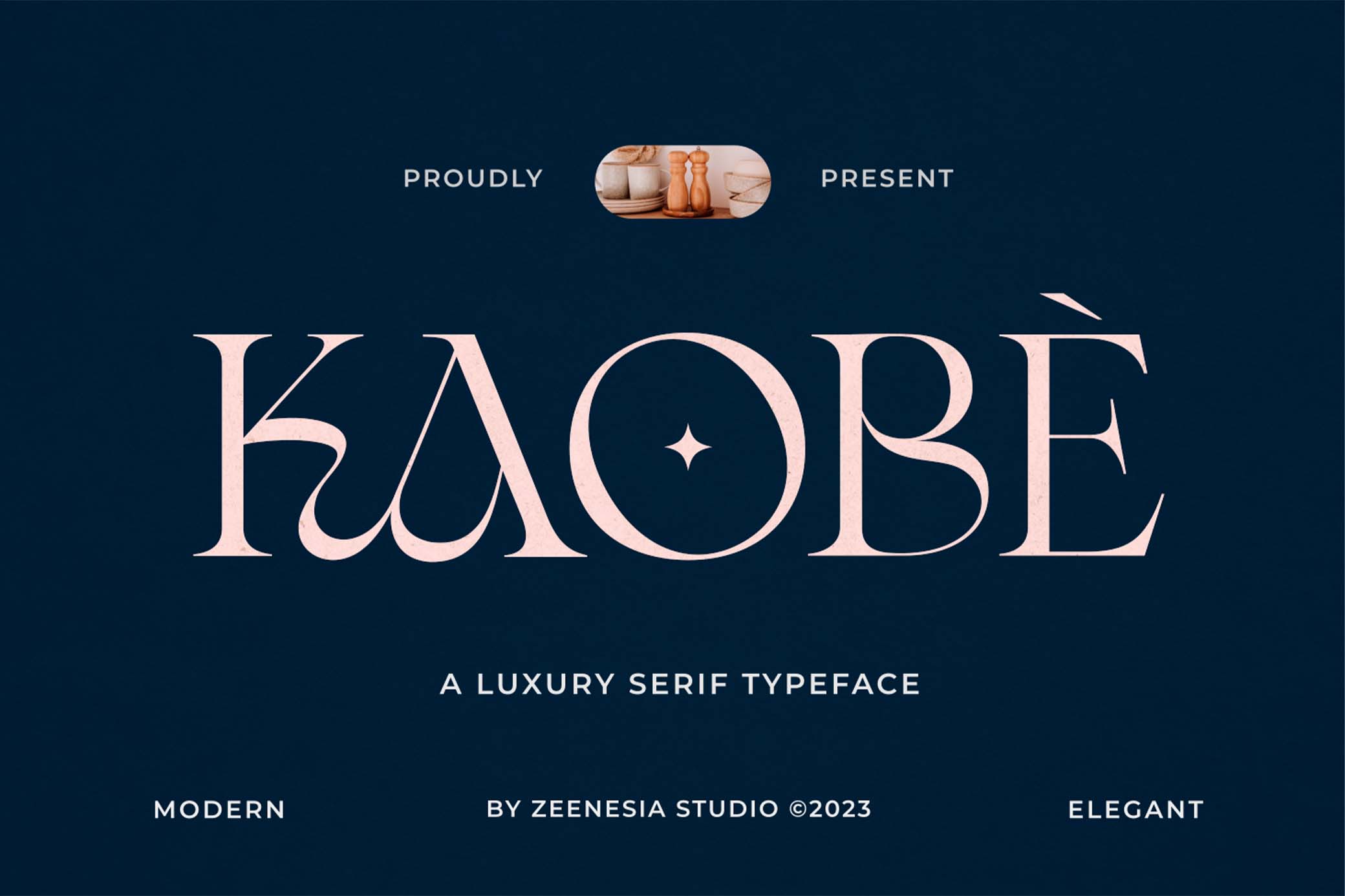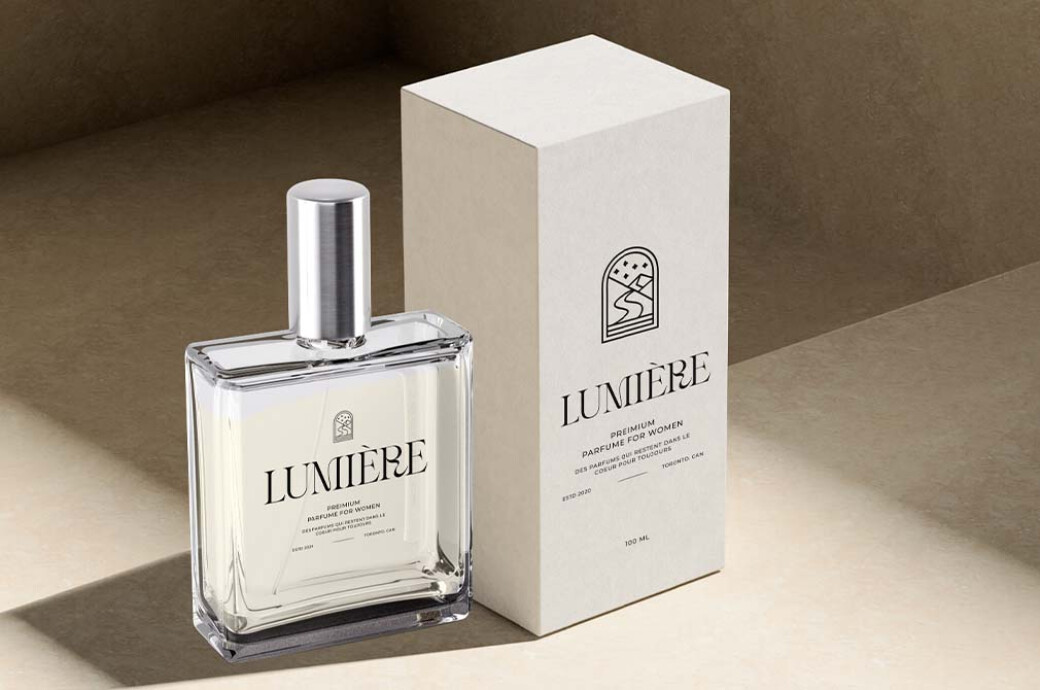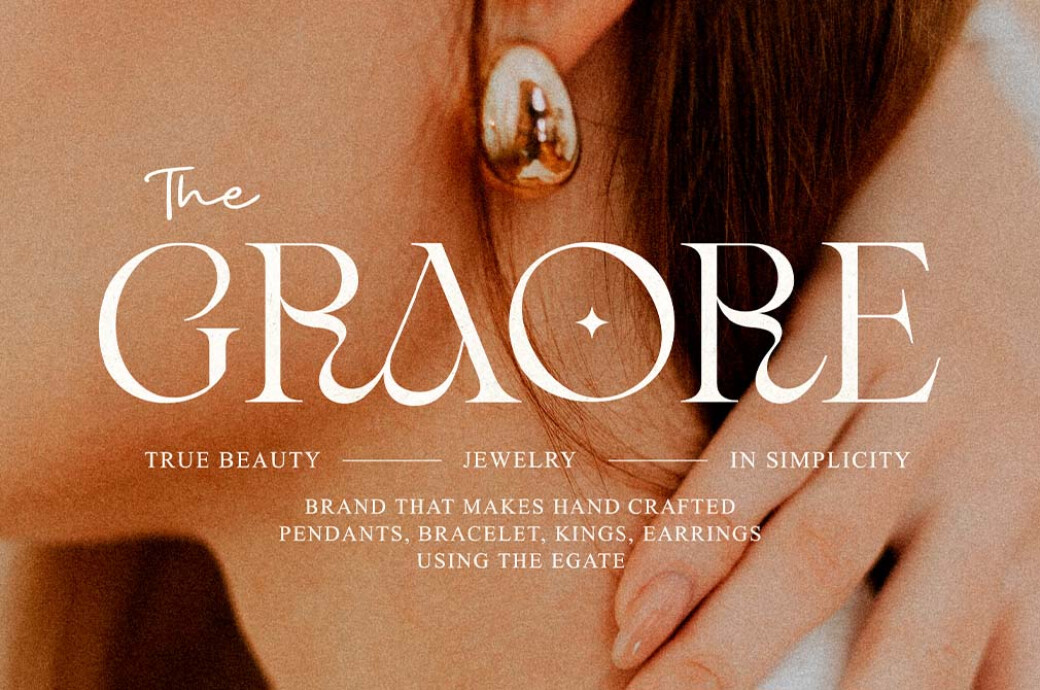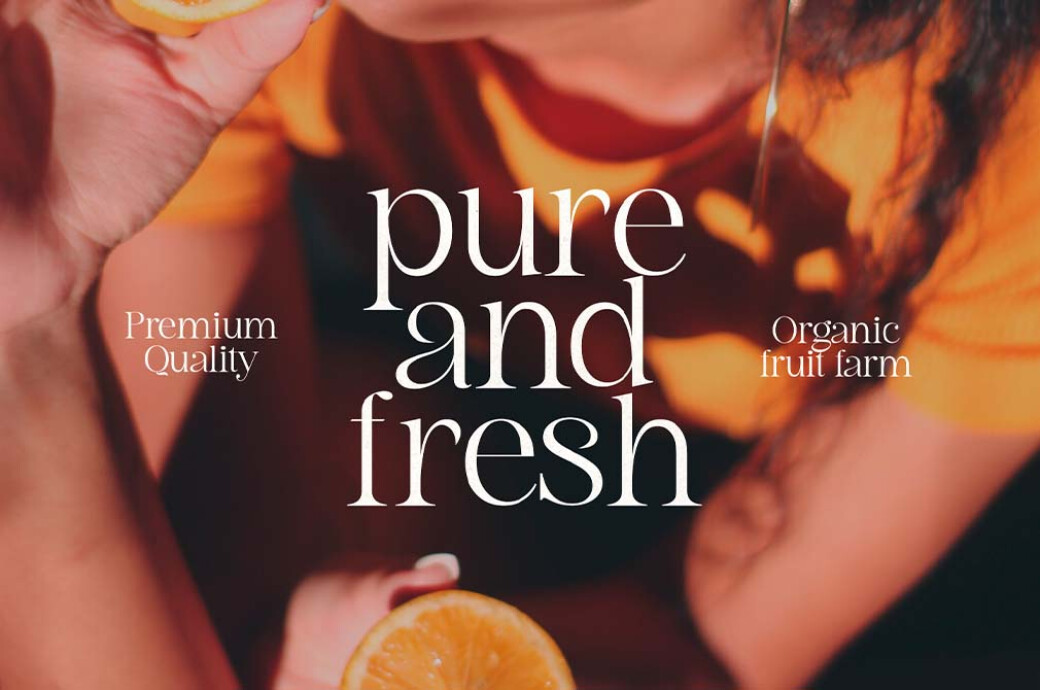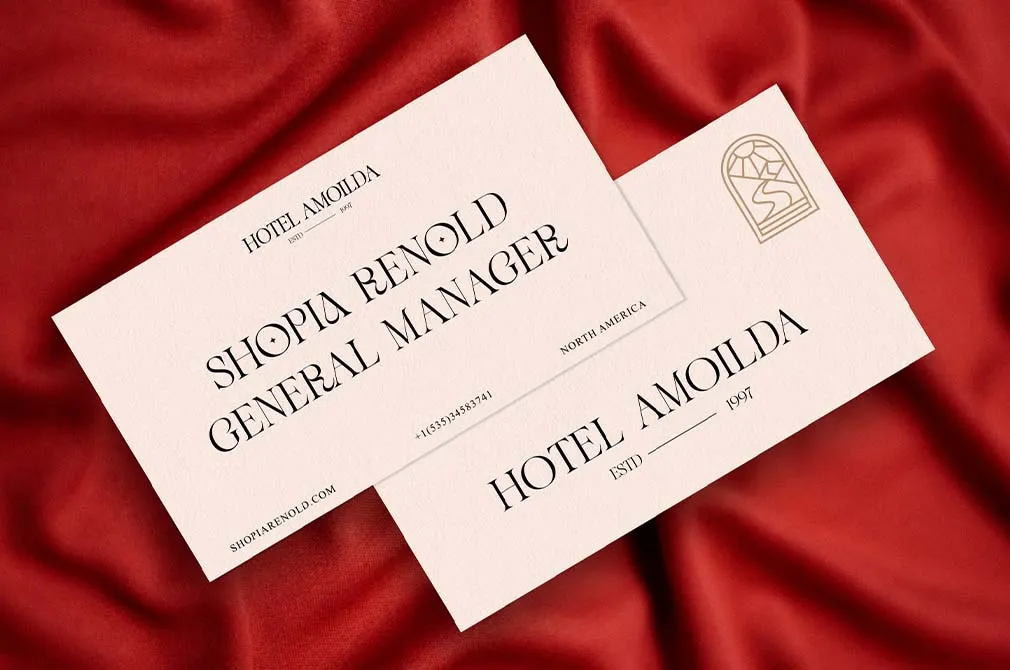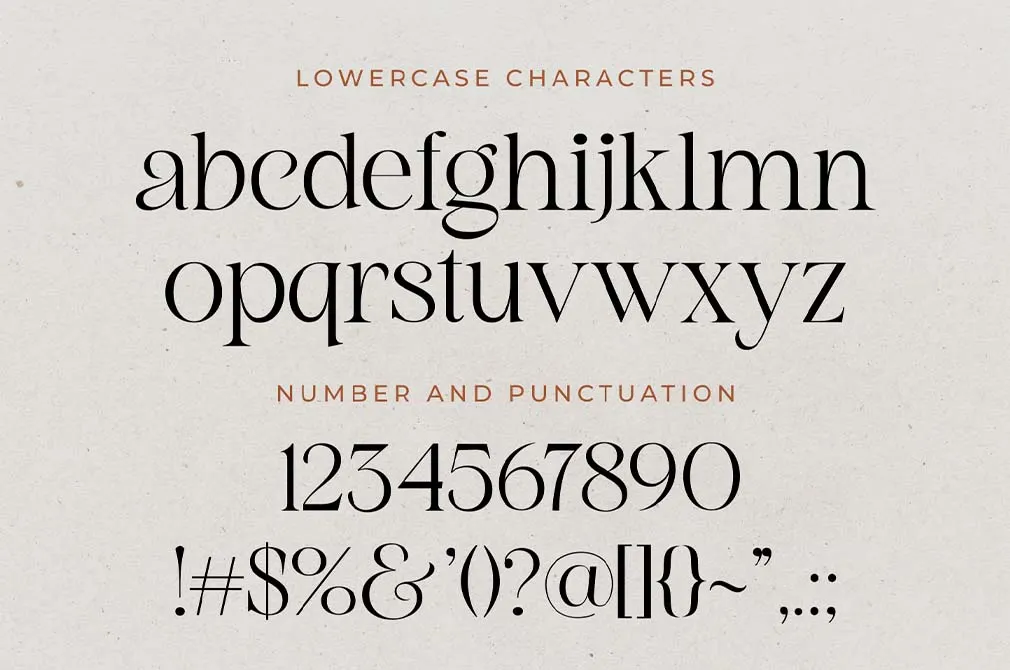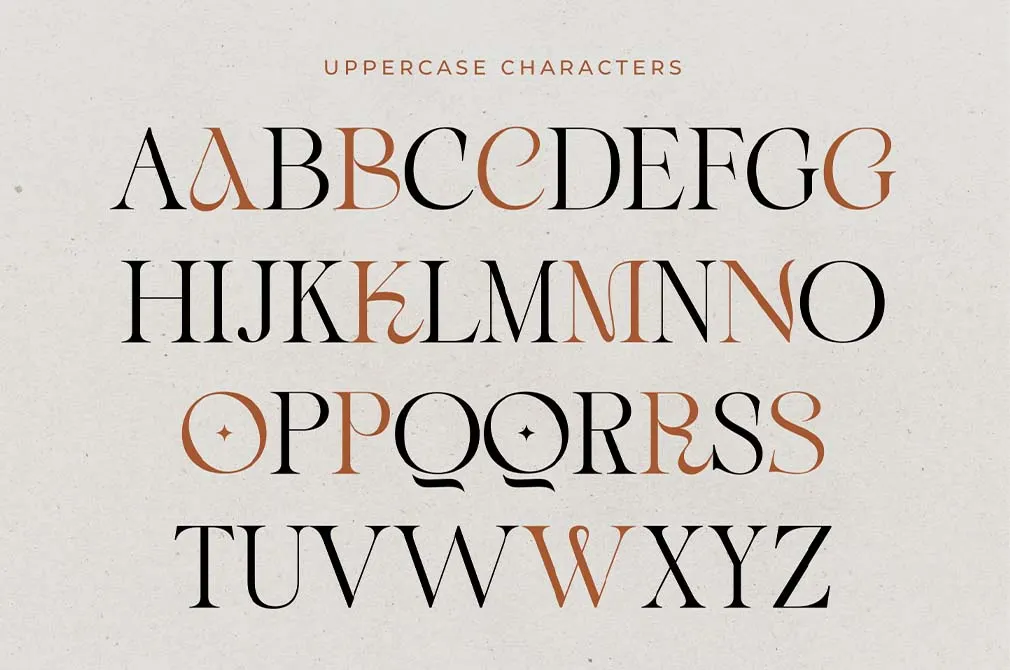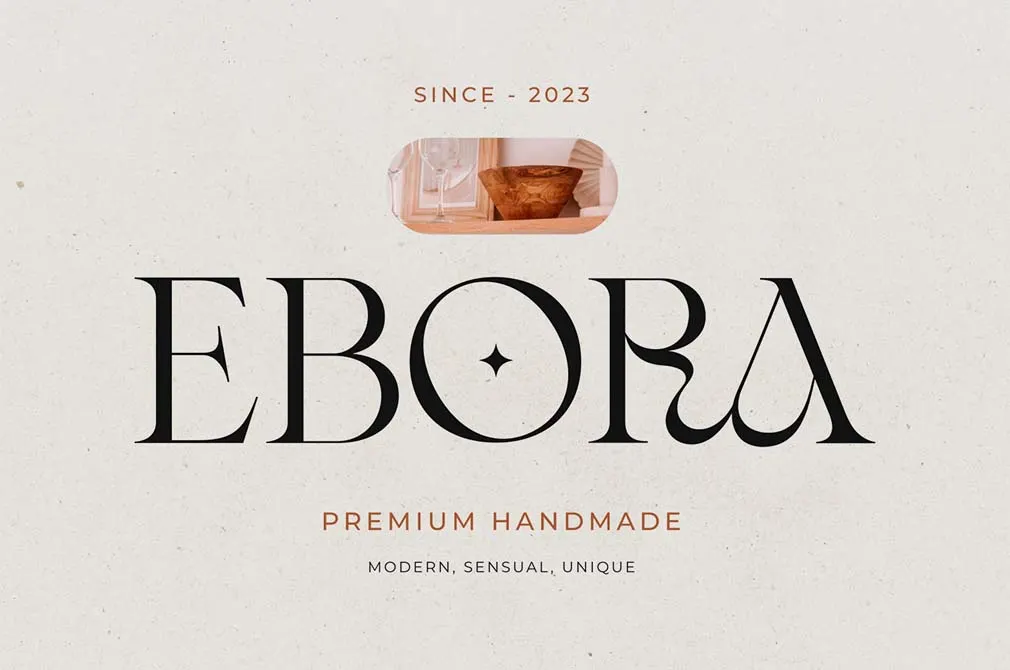
Kaobe Luxury Serif Font
It seems like a new definition of perfection has been reinvented. If you are still looking for an exquisite serif that embodies grace and stylish simplicity in lines, you can find it in our style dictionary.
You certainly thought of luxurious restaurant menus, lifestyle Instagram profiles, and gilt-edged beauty industry ads full of fine feminine energy and refined sophistication. Even an empty bottle of perfume has the potential to become a piece of art — names written in Kaobe with accented characters, punctuations, and numerals sparkle differently. Whether you choose lowercase and uppercase letter****s, let your creative sixth sense guide you in experimenting with titles.